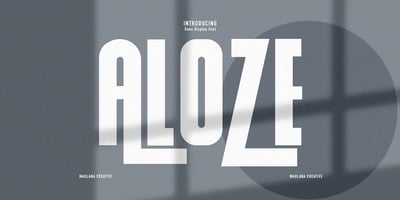
MC Aloze
MC Aloze font
MC Aloze Font Family was designed by Gilang Maulana and published by Maulana Creative. MC Aloze contains 1 styles and family package options. Aloze sans display font. Heavy stroke, fun character with a bit of ligatures. To give you an extra creative work. Aloze sans display font support multilingual more than 100+ language. This font is good for logo design, Social media, Movie Titles, Books Titles, a short text even a long text letter and good for your secondary text font with script or serif. Make a stunning work with Aloze sans display font.Many Thanks,Maulana Creative